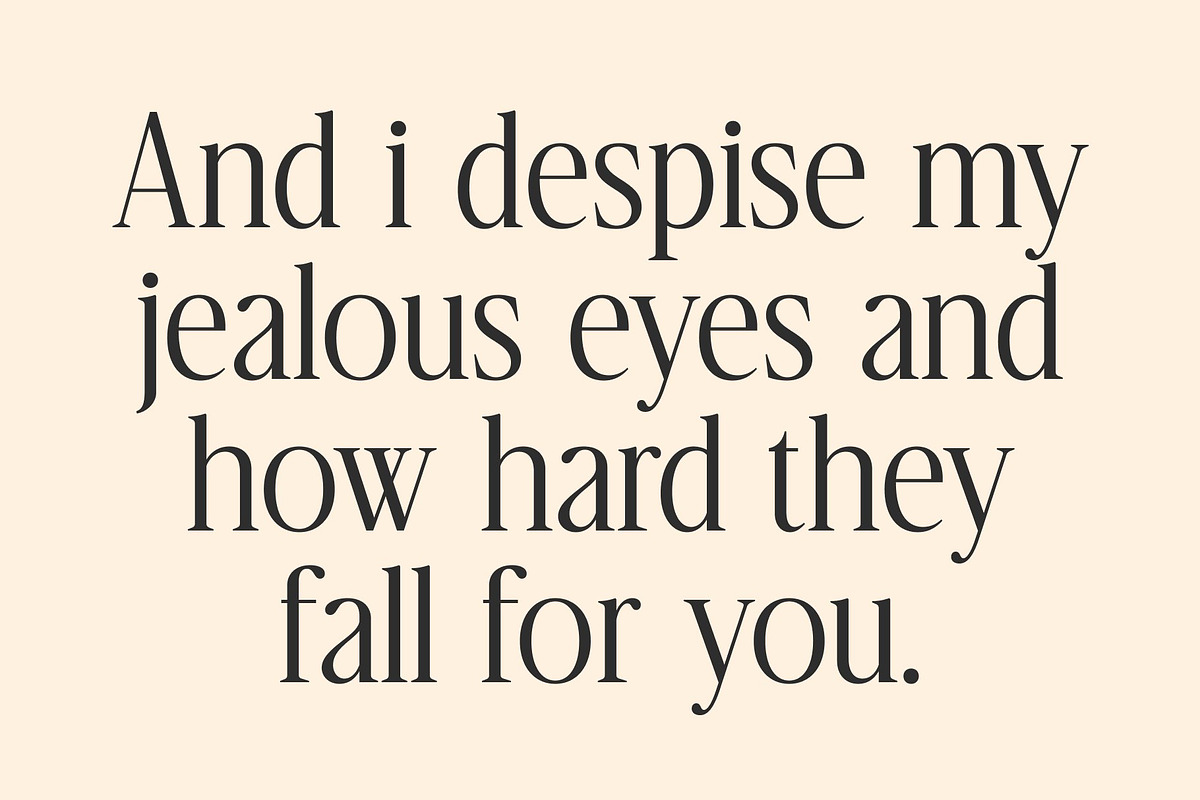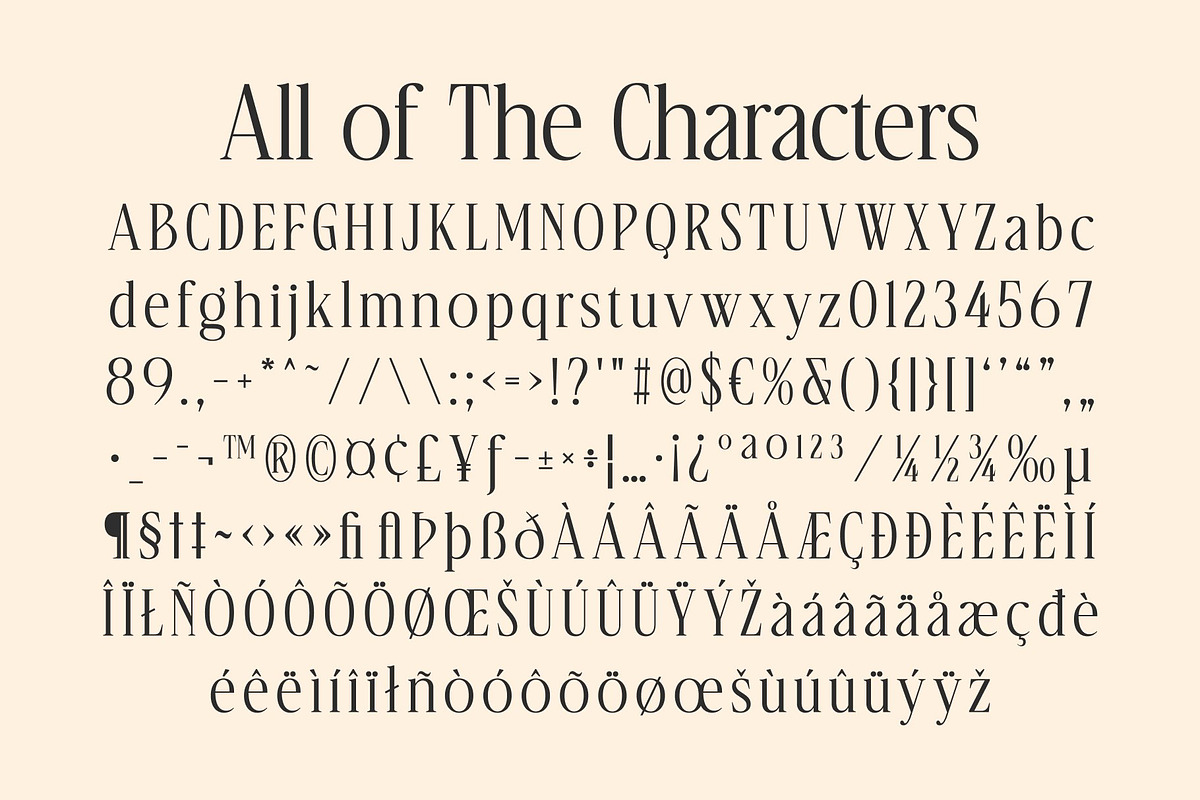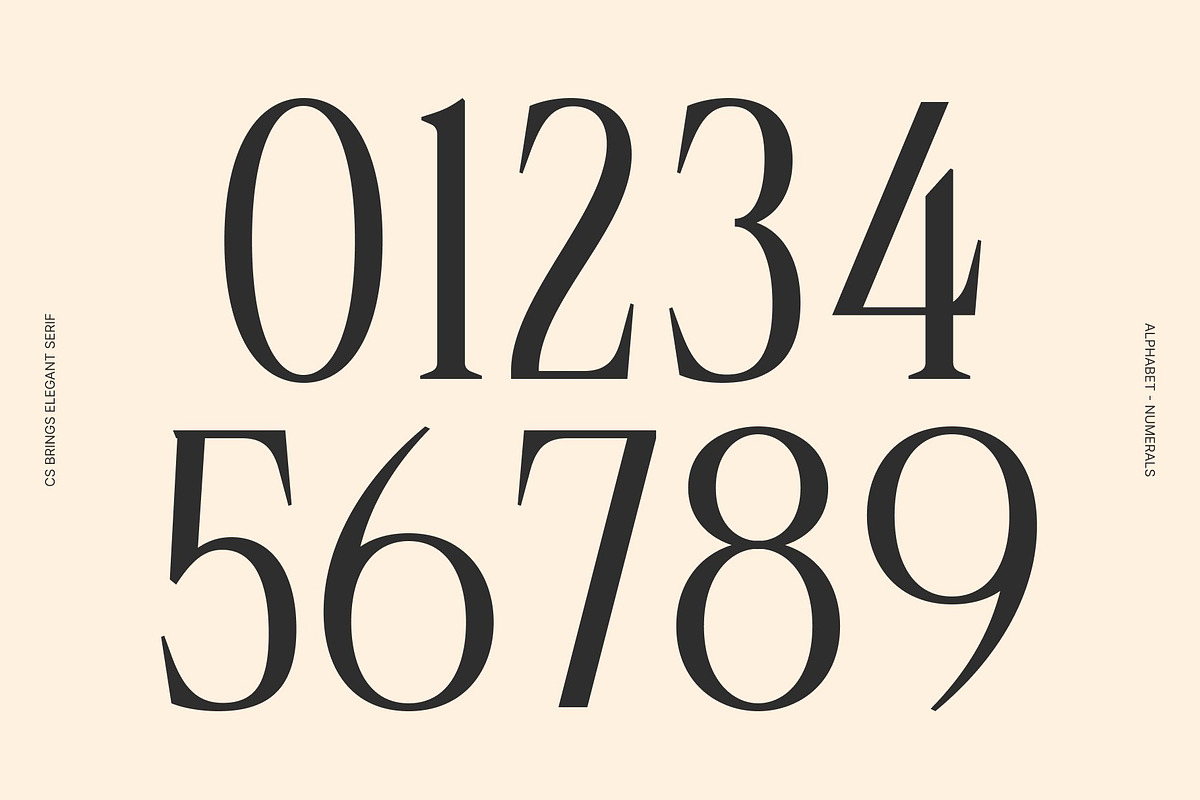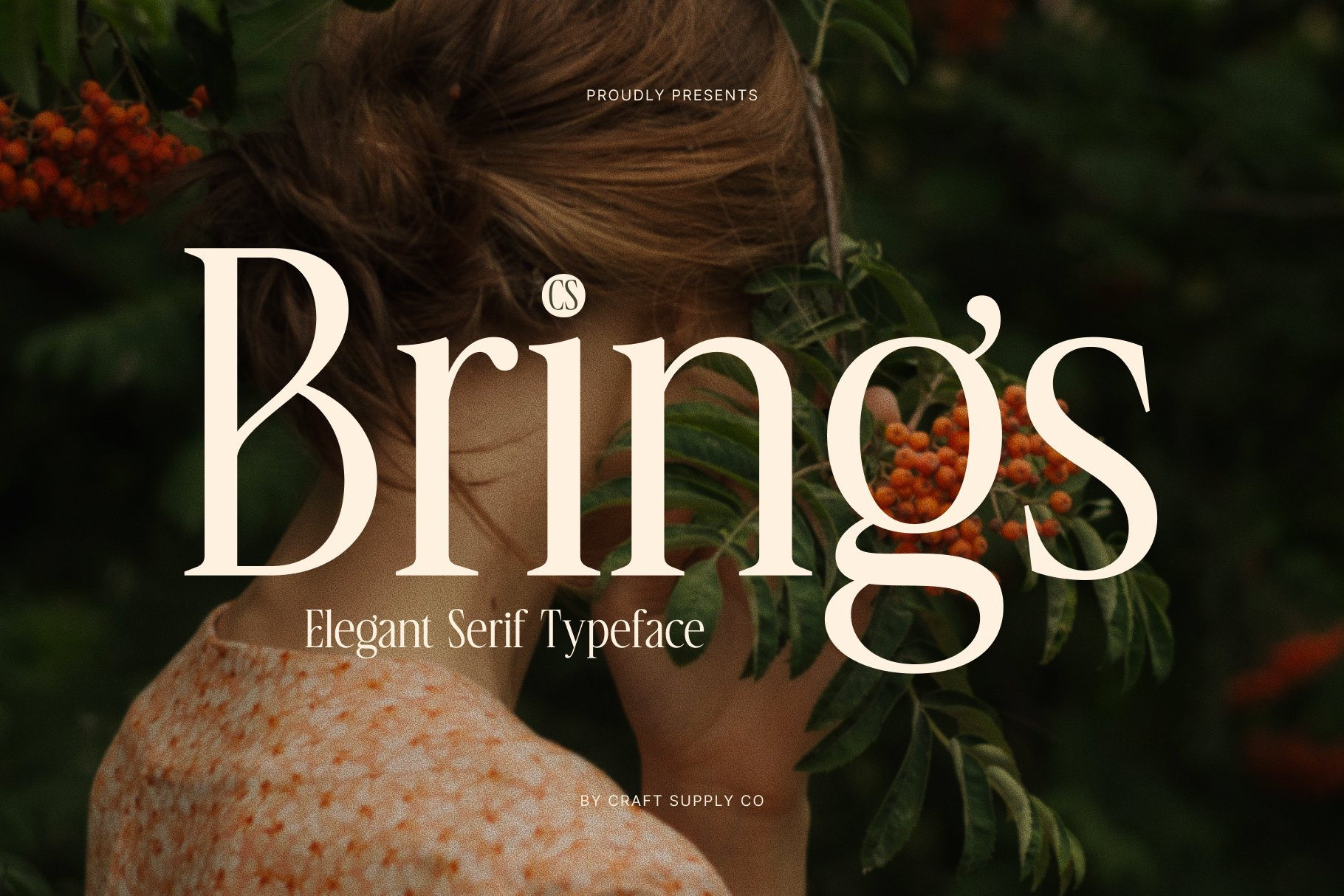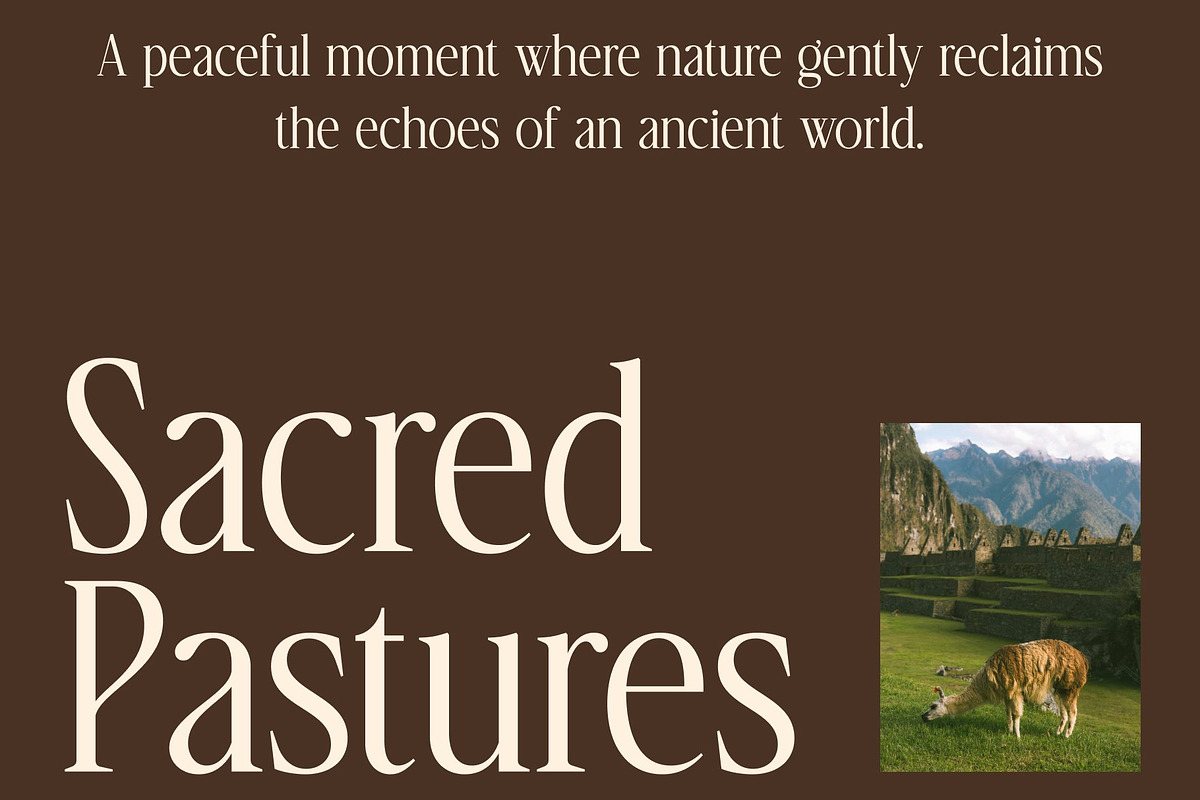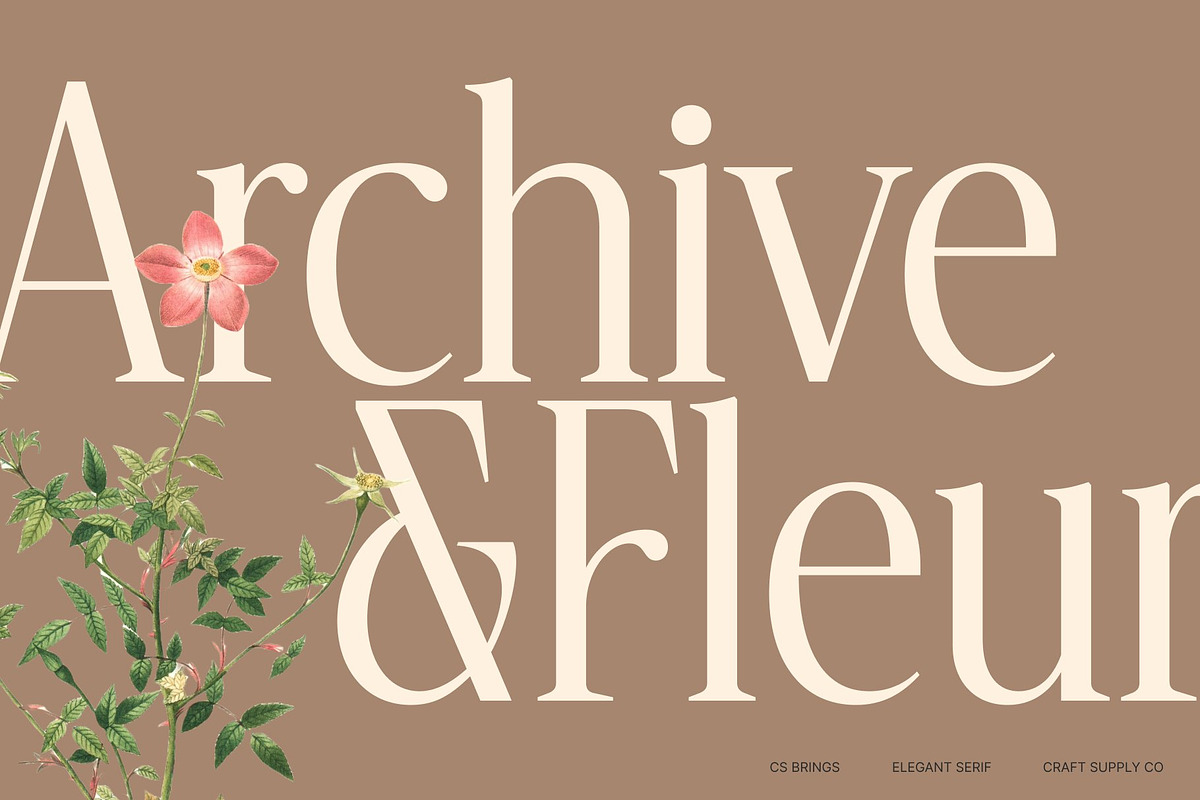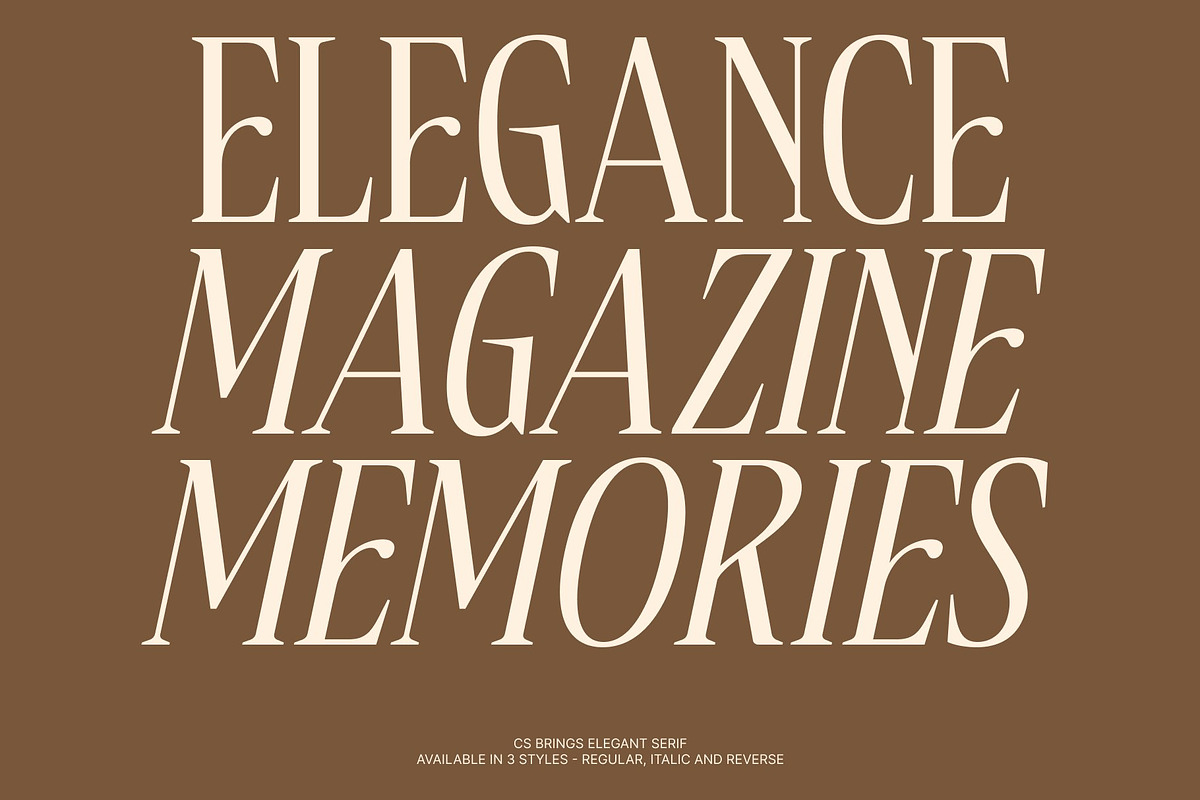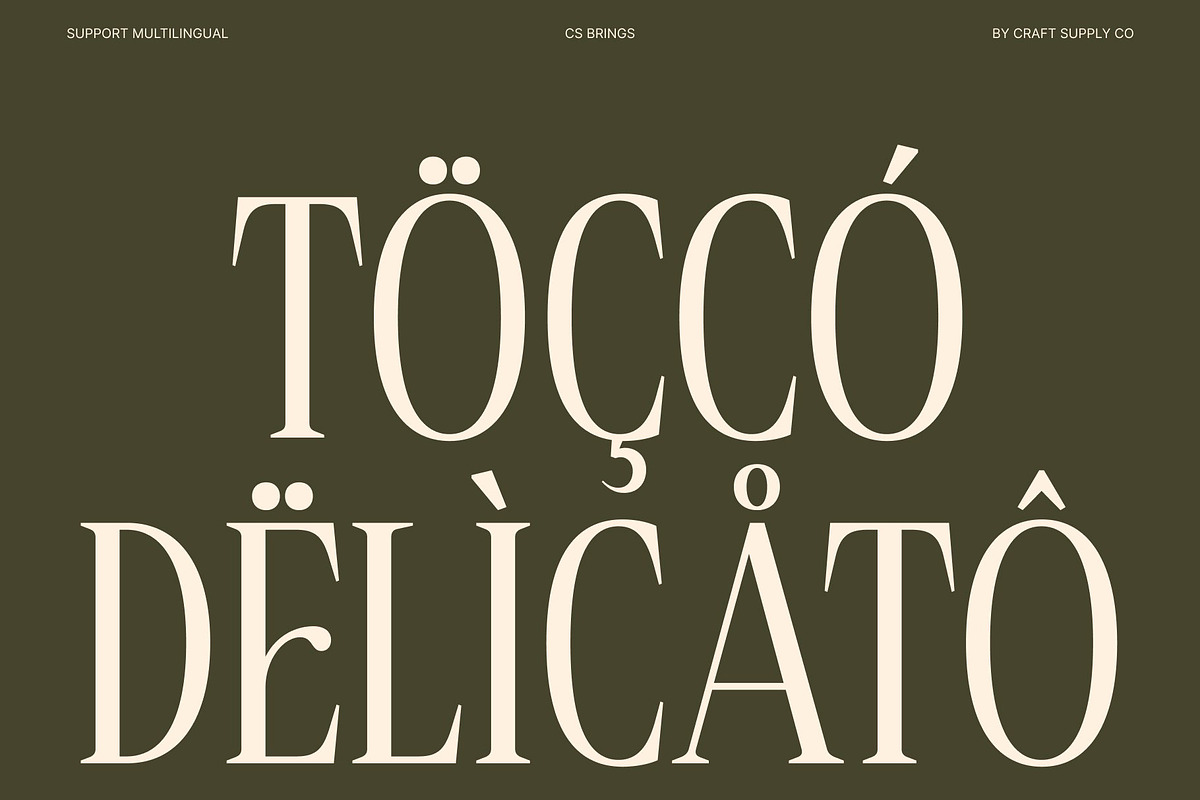
CS Brings – Elegant Serif Font
CS Brings – Elegant Serif with Contemporary Luxury
Elegant Serif with Refined Curves This is an elegant serif font designed with refined curves and graceful proportions that immediately communicate sophistication. Its delicate yet confident letterforms create a polished visual tone that feels timeless while embracing modern aesthetics. Every character is carefully shaped to balance beauty and clarity, resulting in a typeface that feels luxurious and highly refined.
Elongated Details for High-End Presence One of the defining features of this font is its elongated details, which add a sense of height, elegance, and visual rhythm. These extended proportions enhance readability while giving the font a distinctive fashion-forward personality. The tall structure helps headlines appear more dramatic and expressive, making every word feel intentional and elevated.
Contemporary Style with Timeless Appeal This font blends classic serif traditions with contemporary styling, creating a font that feels both familiar and fresh. Its clean lines and modern proportions ensure it works seamlessly in today’s design landscape while retaining a timeless elegance that never feels outdated.
Perfect for Luxury Design, Editorials, and Branding Designed to shine in premium applications, this font performs beautifully in luxury branding, editorial layouts, and high-end marketing materials. Whether used for magazine headlines, fashion campaigns, packaging, or logo design, this font delivers a refined voice that communicates prestige and style with effortless confidence.
CS Brings Regular
CS Brings Italic
CS Brings Reverse Italic